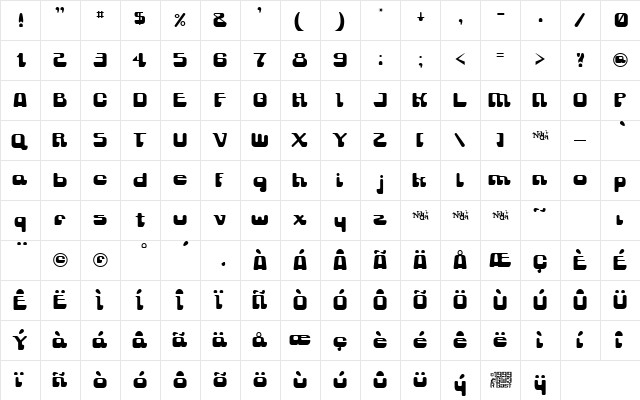
Gravity Sucks Regular
Design Context for Gravity Sucks Typeface
Gravity Sucks is a composed and adaptable typeface that performs quietly and consistently across a wide range of design contexts.